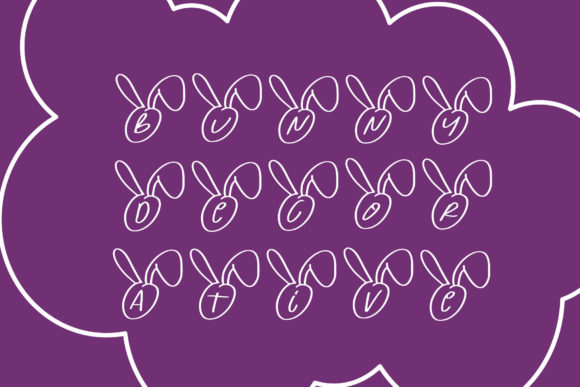
The Bunny Font: A Cute and Unique Decorative Font for Your Creative Projects
The Bunny font is a cute and incredibly unique decorative font that has become a staple in my design toolkit. Its original look appeals to a wide range of crafty ideas, from letterheads and titles to stationery. In this article, I’ll share my honest review of the Bunny font, provide a practical guide on how to use it, and explore similar fonts and alternatives.
My Honest Review of the Bunny Font
• ✨ Unique and playful design that’s perfect for creative projects
• ✅ Easy to read and understand, even in smaller sizes
• 💕 Adorable bunny-themed details that add a touch of whimsy
• 🎨 Highly versatile and can be used for various design applications
While the Bunny font is an excellent choice for many projects, there are a few things to keep in mind:
• 🤔 The font may not be suitable for formal or professional designs, as it’s quite playful and decorative.
• ⚠️ Some characters, like the lowercase ‘q’ and ‘x’, may be a bit tricky to read due to their unique design.
The Designer Inspiration Behind the Bunny Font
The Bunny font was designed by a talented type designer who wanted to create a font that would capture the whimsy and playfulness of spring. Inspired by the adorable illustrations of bunnies in children’s books, the designer crafted a font that’s both fun and functional. The result is a unique and charming font that’s perfect for creative projects.
Q: What is the Bunny font best used for?
A: The Bunny font is best used for creative projects that require a playful and whimsical touch, such as stationery, titles, and letterheads.
Q: Is the Bunny font suitable for body text?
A: While the Bunny font is easy to read, it’s not recommended for body text due to its decorative nature. It’s best used for headings and titles.